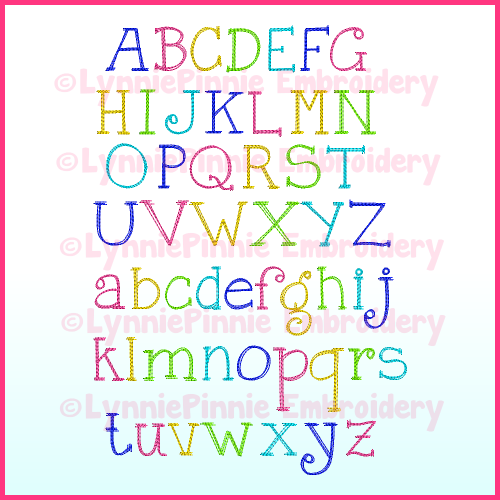
CurlyGirl Colored Pencil Sketch Serif Font - DIGITAL Embroidery Machine File -- 3 sizes + BX
Quick Stitch triple run serif font - BX files for Embrilliance software included.
Uppercase & lowercase in 3 sizes:
Approximately 1 inch
Approximately 1.25 inches
Approximately 1.5 inches